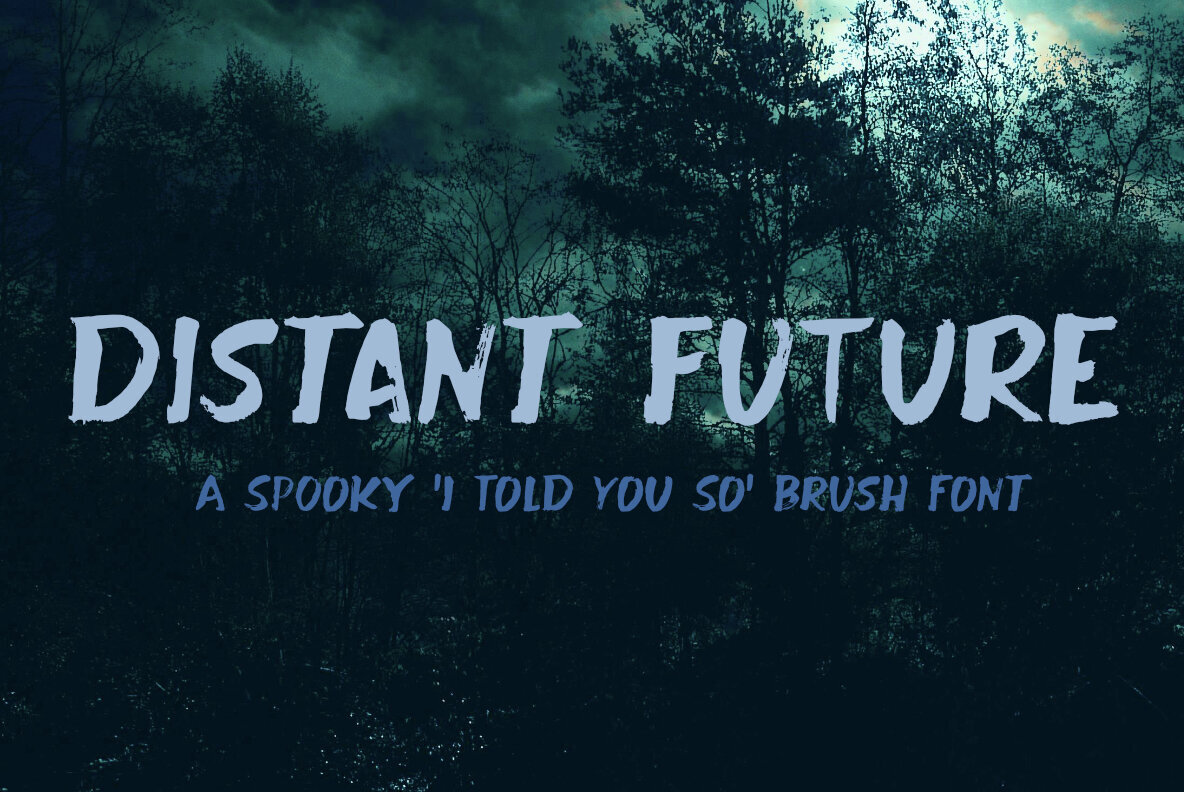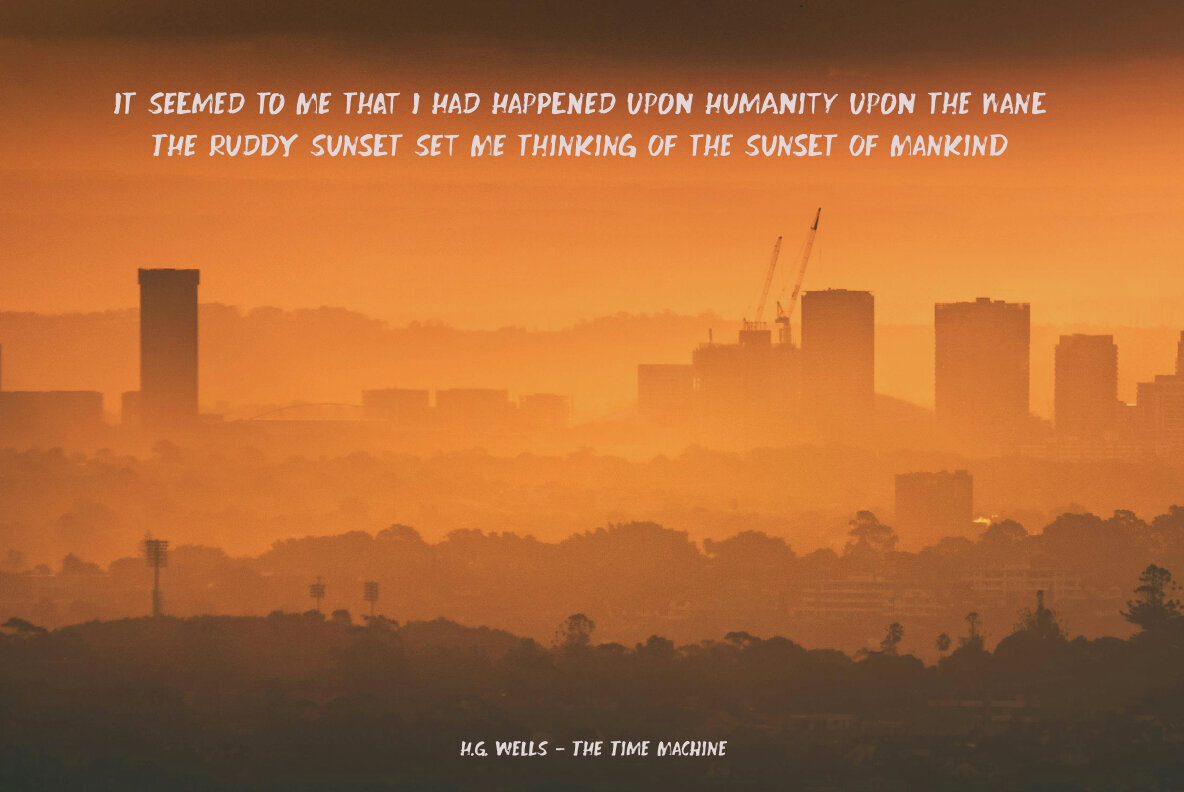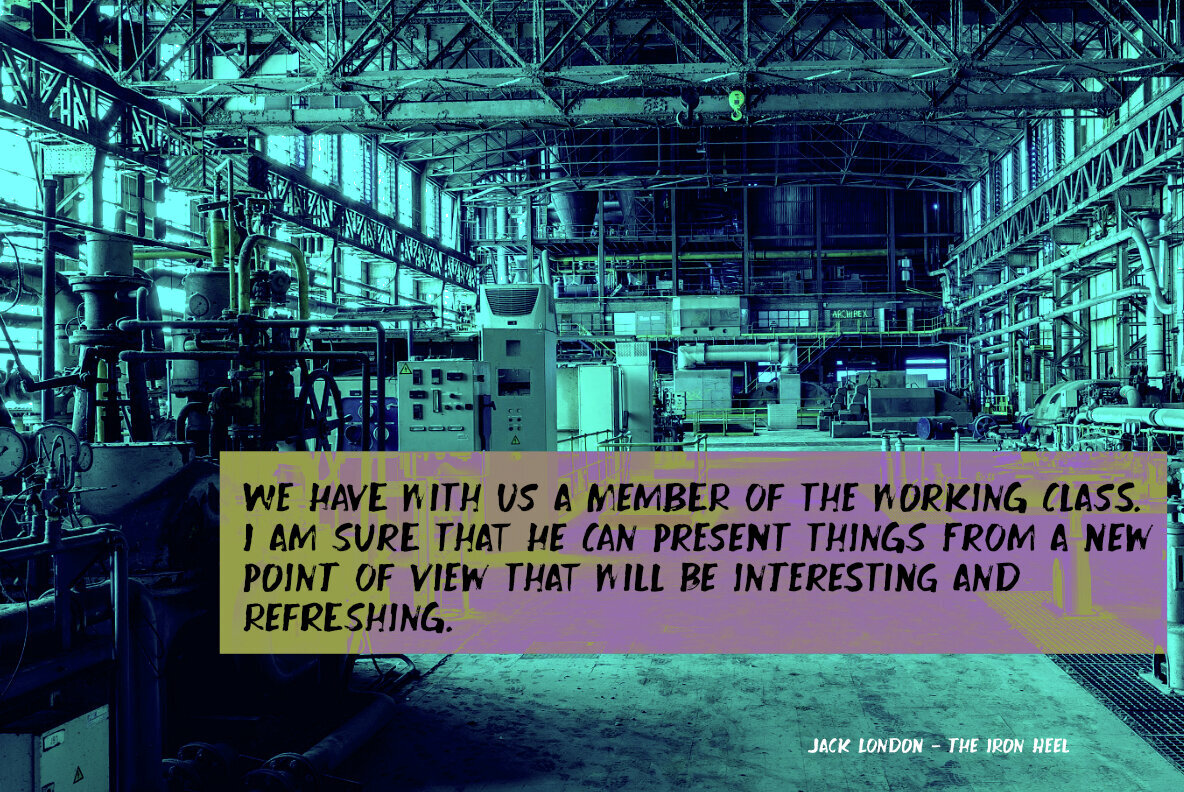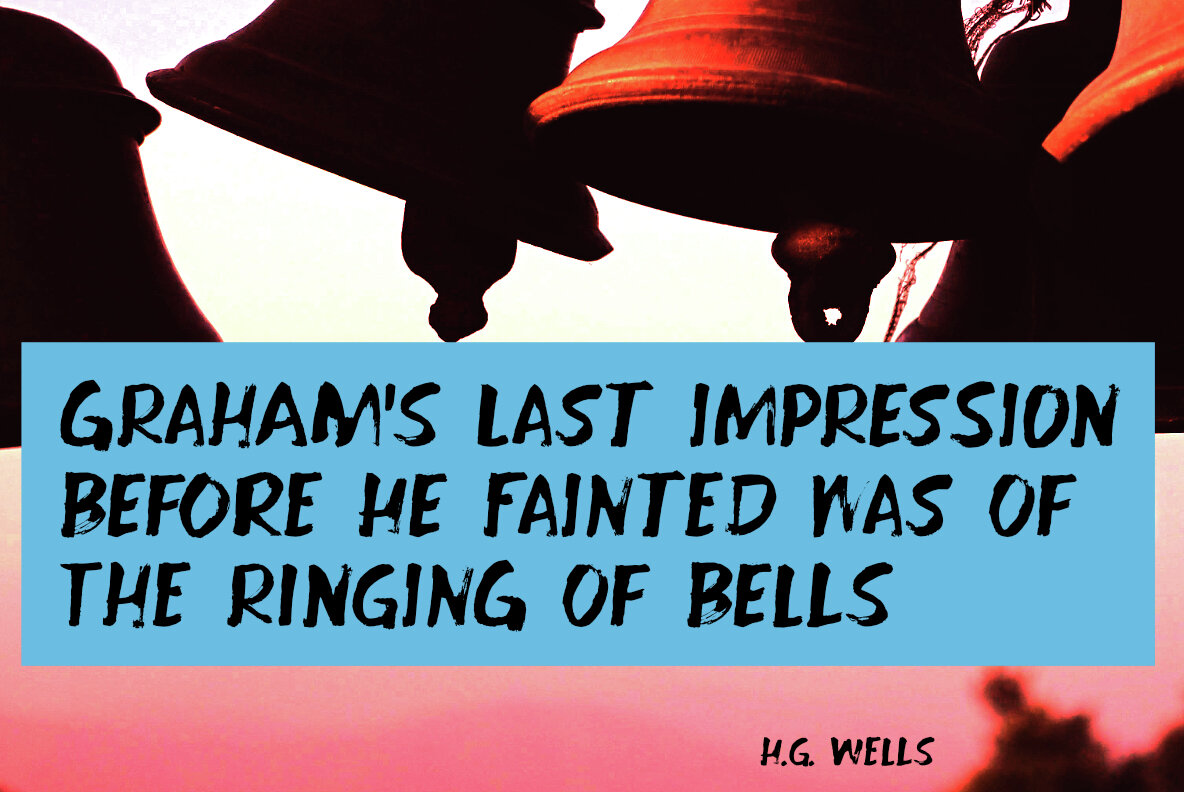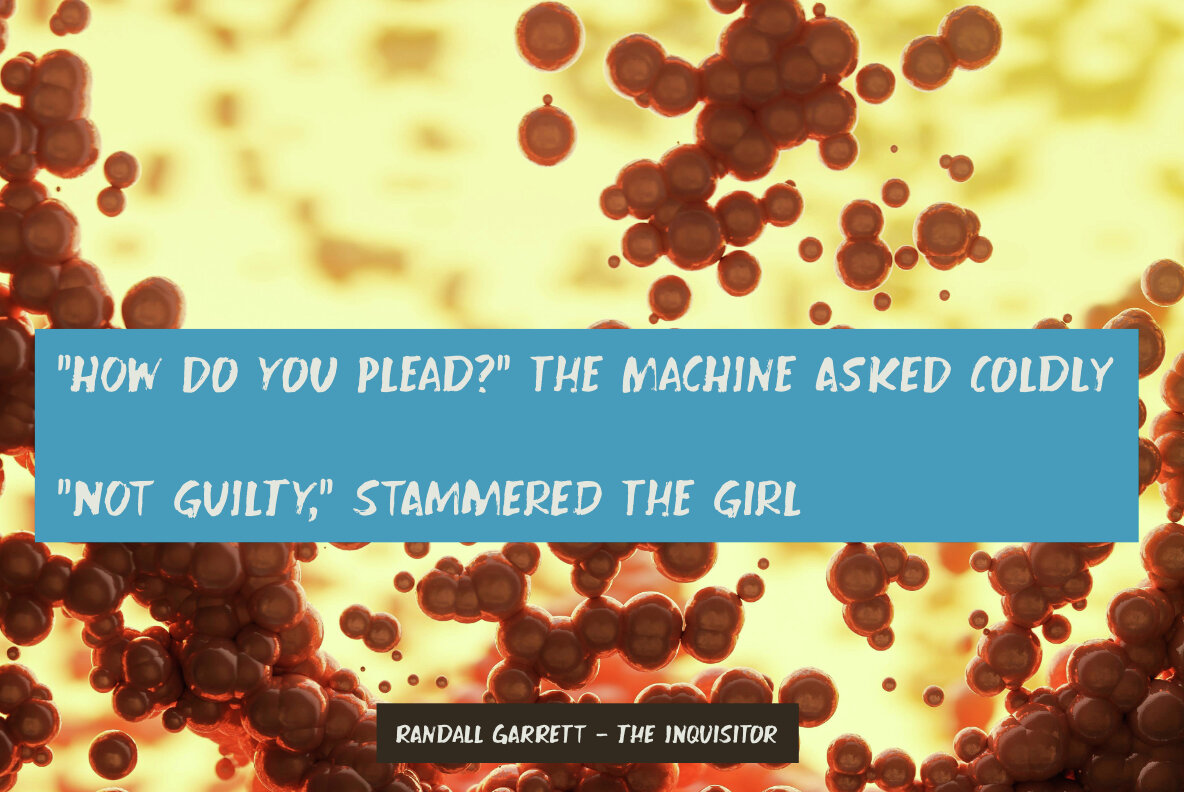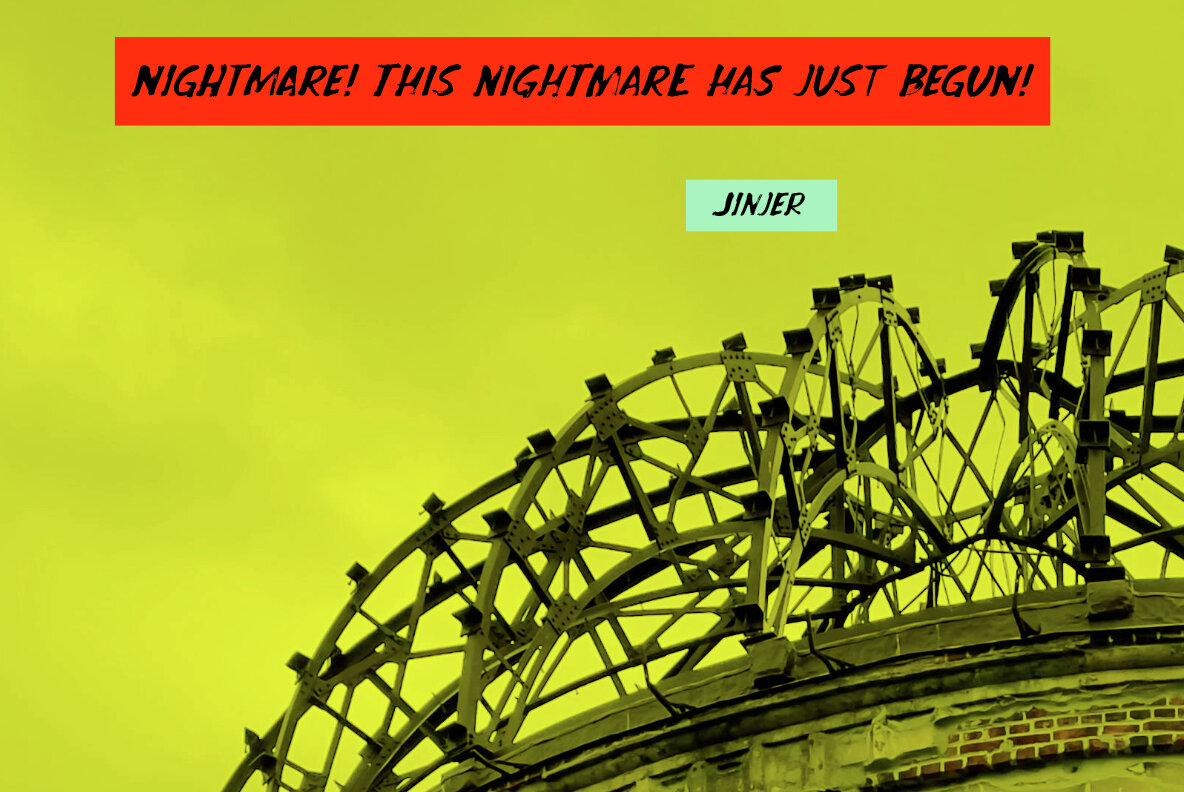
Distant Future Font
Distant Future is a unique font that blends spooky aesthetics with a sophisticated design. Its grunge style is perfect for projects that require an eerie or mysterious touch. Ideal for protest signs, posters, and Halloween-themed websites, Distant Future can also enhance the visual appeal of product packaging and book covers with its bold presence.
Explore the versatility of Distant Future and see how its distinct character can add an intriguing edge to your design projects. Embrace both its haunting charm and its refined style, making it suitable for a wide array of creative applications.